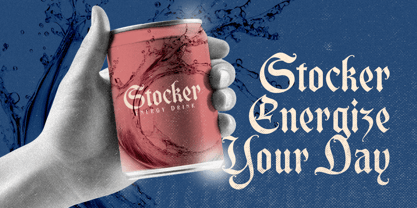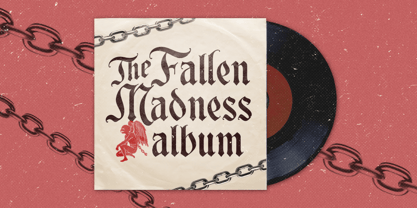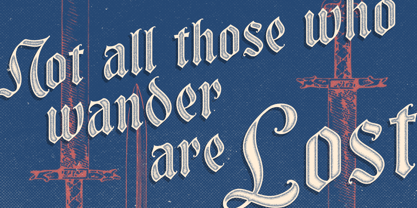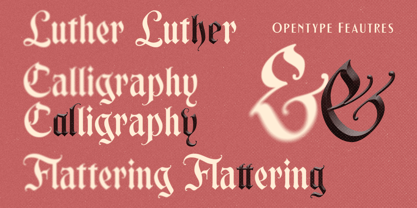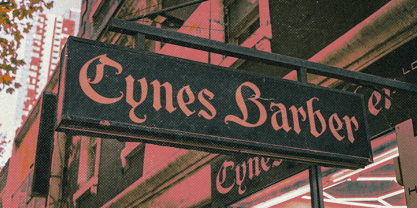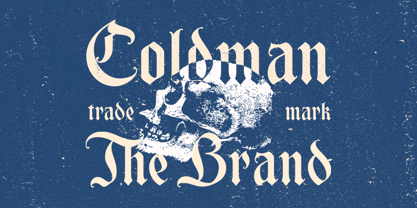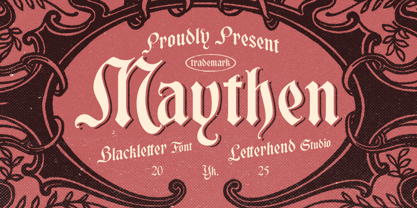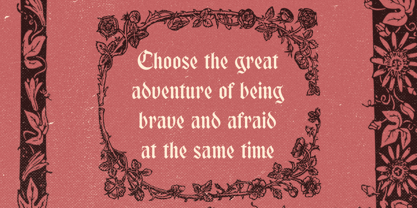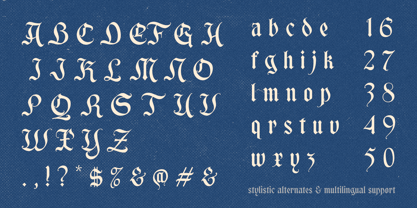
Maythen
by Letterhend
The Maythen Font Family was designed by Hendry Juanda and published by Letterhend. Maythen contains 1 styles.
Maythen is a majestic blackletter font crafted for those who dare to design with grandeur. Each stroke is steeped in old-world charm, echoing the elegance of medieval manuscripts and vintage posters. With its bold curves and commanding presence, Maythen elevates everything from book covers to branding into something timeless and regal. Let your words speak with nobility, mystery, and dramatic flair — perfect for gothic themes, antique packaging, and storytelling design.
Features :
• Uppercase & lowercase
• Numbers and punctuation
• Alternates Character
• Multilingual support